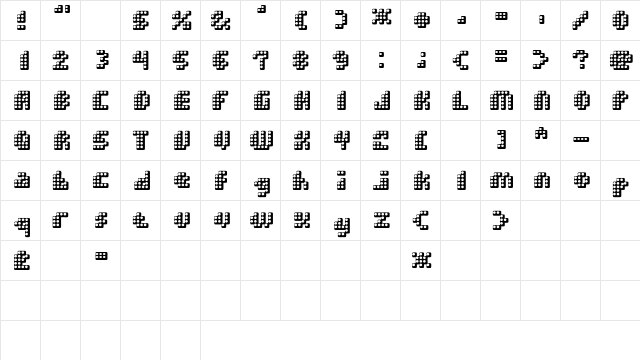
Double Strike Regular
Design Context for Double Strike Typeface
Double Strike is a composed and adaptable typeface that performs quietly and consistently across a wide range of design contexts.